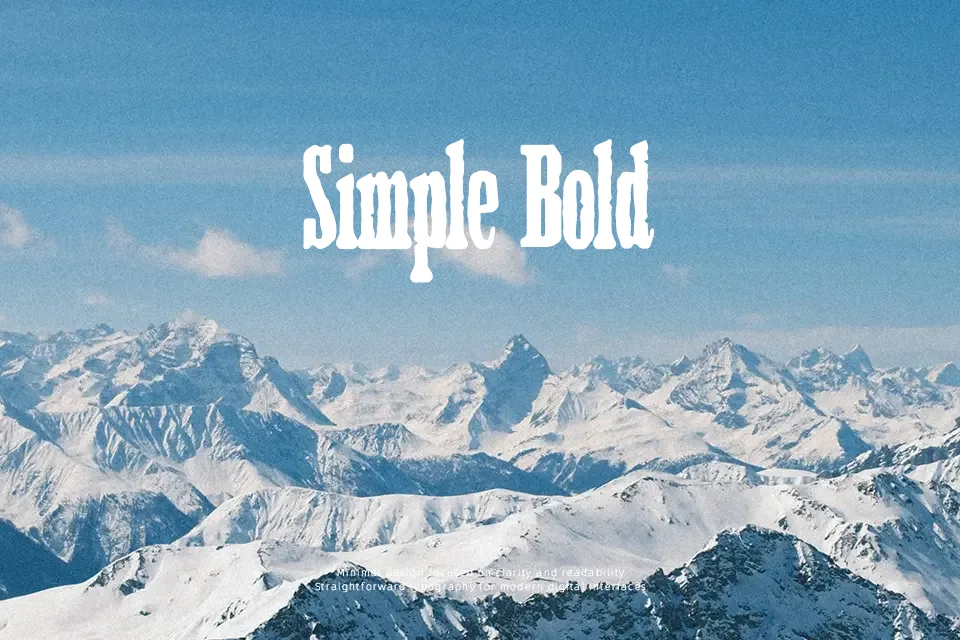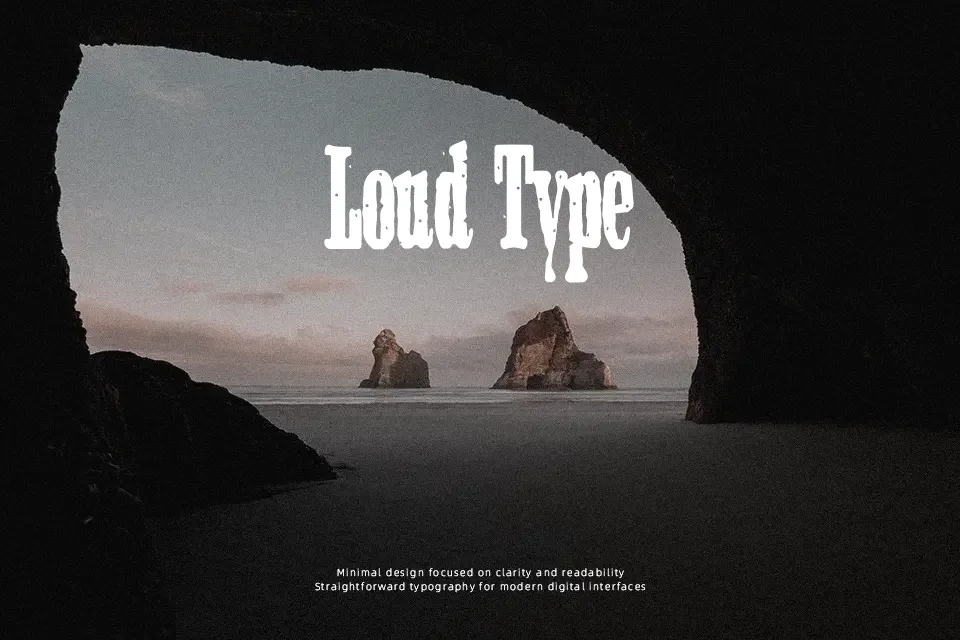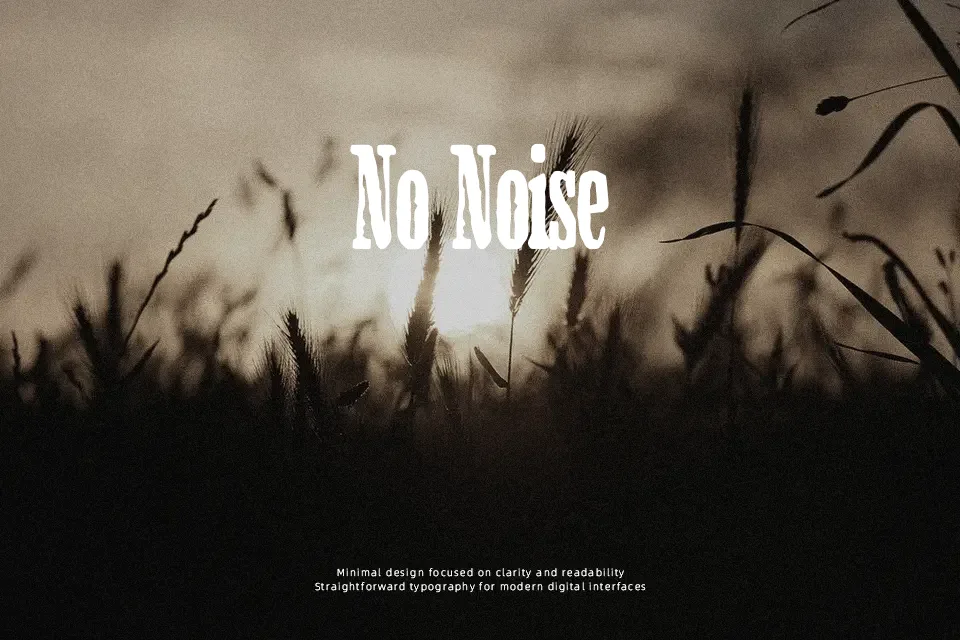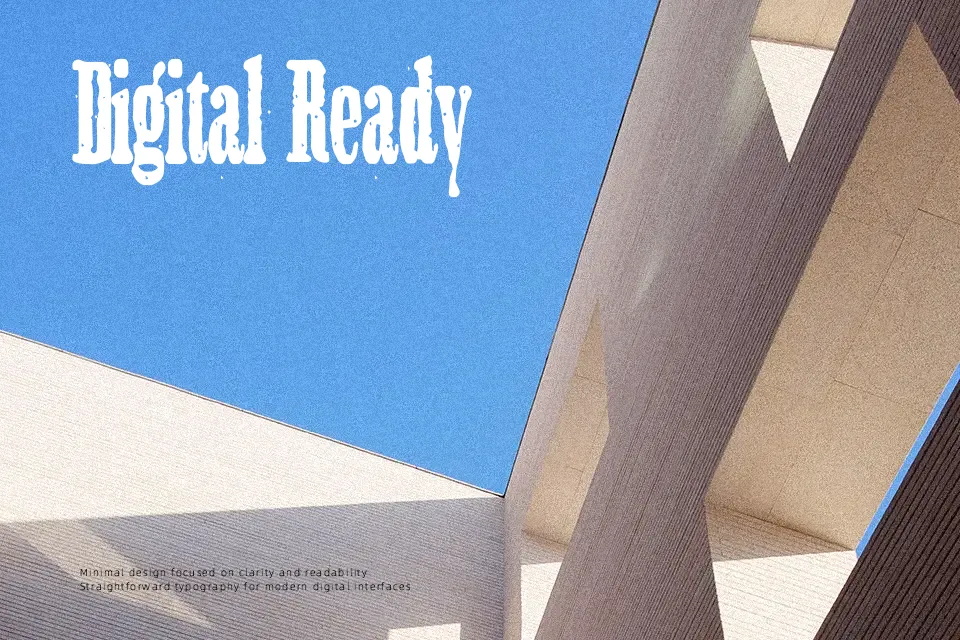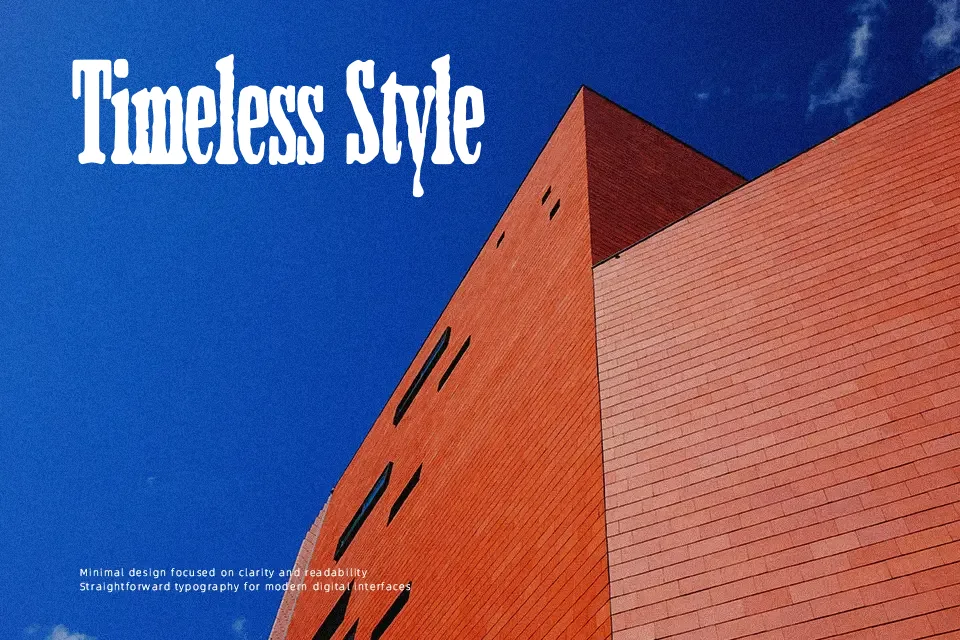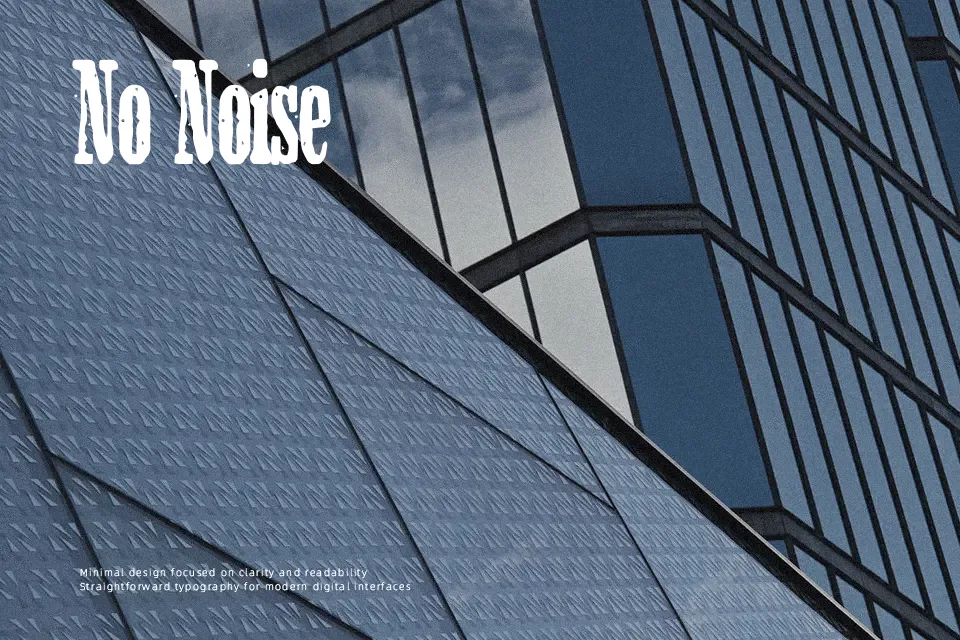
Unchained Font
Designed by Måns Grebäck
Unchained Font proves most compelling when deployed as an assertive headline choice in period-inspired graphic layouts. Built with substantial slab serifs, squared terminal structures, and solid stem weights, the letterforms exhibit sturdy, slightly compressed proportions that anchor horizontal text arrangements effectively. The spacing remains relatively tight to maximize compactness, allowing the typeface to generate powerful typographic rhythm across merchandise graphics and saloon-themed poster headers. However, the dense stroke construction and ornate spurs compromise letter differentiation when scaled down. Extended body copy and small digital captions quickly become illegible, meaning this design excels strictly in focused headline environments.
Best For: vintage product packaging, saloon restaurant signage, western apparel graphics, retro film title cards
Not Ideal For: long paragraph text, mobile app interfaces, dense editorial layouts, small caption labels
Perfect for headline, logo, and packaging, with a bold and decorative style.